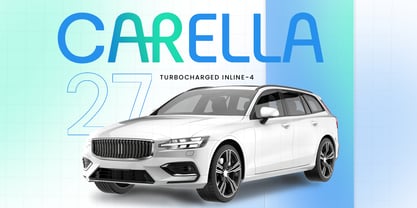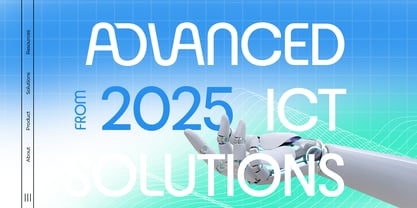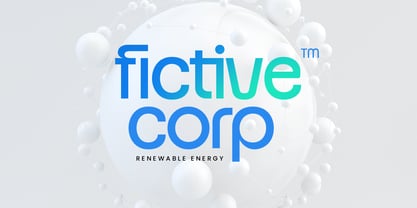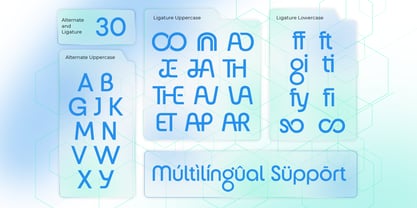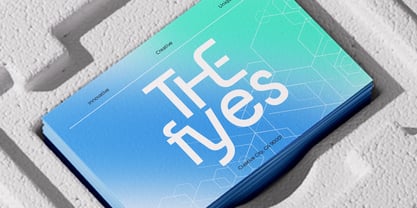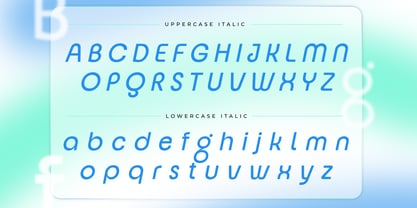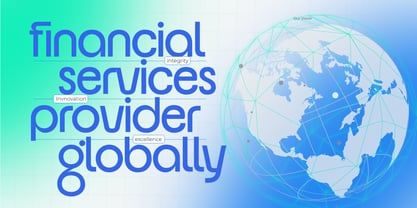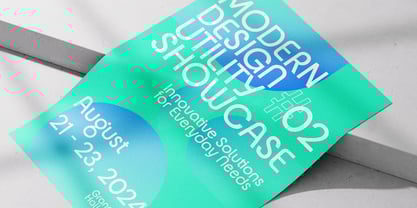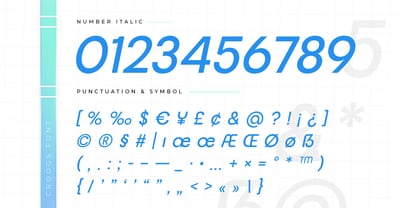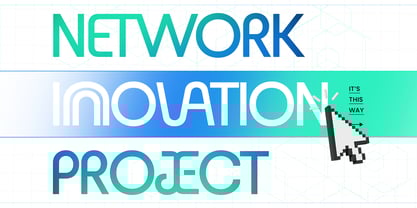
Croogs SS
by Sensatype Studio
Croogs - Modern Logo Font
Croogs is a modern corporate font designed to bring a sophisticated edge to your branding projects. Its clean and professional look is perfect for companies seeking to convey reliability and elegance in their visual identity. Whether used for logos, business cards, or corporate presentations, Croogs ensures a polished and cohesive appearance.
This font was created with versatility in mind, making it ideal for a range of applications from digital media to print. Its bold characters and sleek lines make it suitable for businesses aiming to create a strong and memorable brand presence. Croogs is the go-to choice for those who want to merge modern aesthetics with corporate professionalism.
With its unique character set and modern design, Croogs stands out in the world of corporate fonts, offering a perfect balance of style and functionality for all your branding needs.
Croogs Modern Logo Font Features:
• Unique Characters Ready
• Punctuation, Number, and Symbol
• Uppercase and Lowercase
• Multilingual Support
• Opentype Features